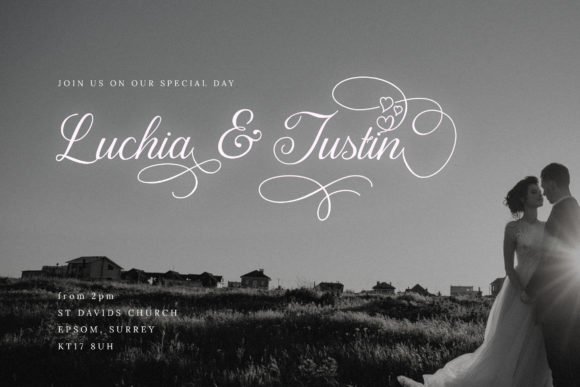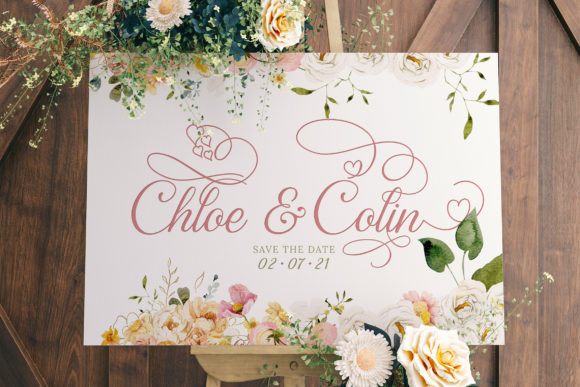
Forever in Love Font
db-ku.com - Script & Handwritten -- Forever in Love is a luxurious and well balanced handwritten font. This font is neatly crafted and highly detailed. Forever in Love is PUA encoded which means you can access all glyphs and swashes with ease!